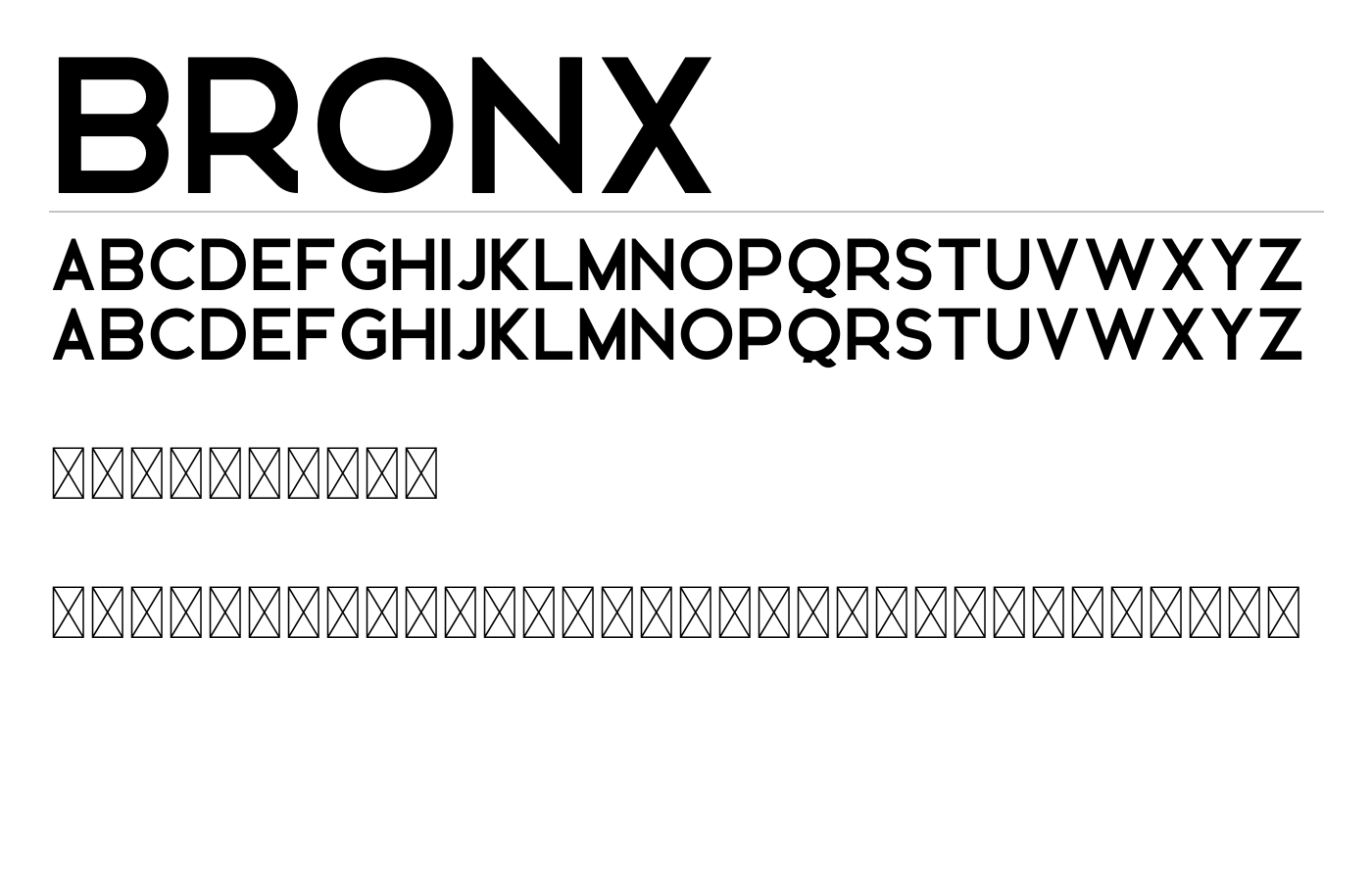
Bronx is a clean, modern sans serif font characterized by its strong geometric shapes, consistent medium weight, and slightly condensed width that gives it a sharp, professional appearance. Its simple, single-story letterforms combined with a balanced x-height make it highly legible, making it ideal for headlines, branding, and editorial uses where clarity and a contemporary feel are essential. This versatile font excels in settings that require a bold yet refined tone, such as logos, websites, and fashion-focused designs.
Bronx Font